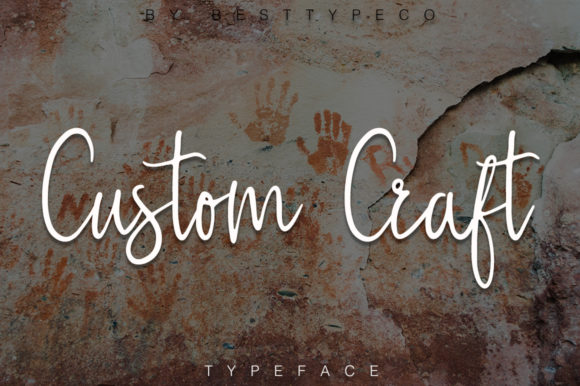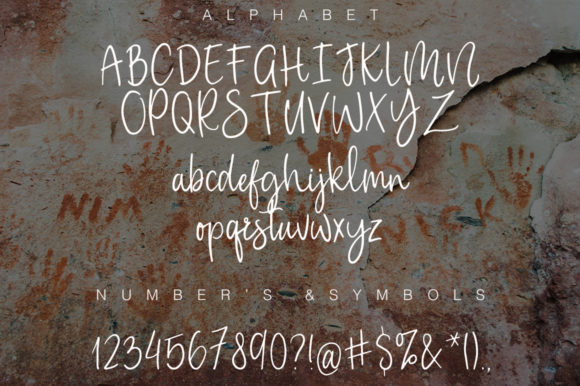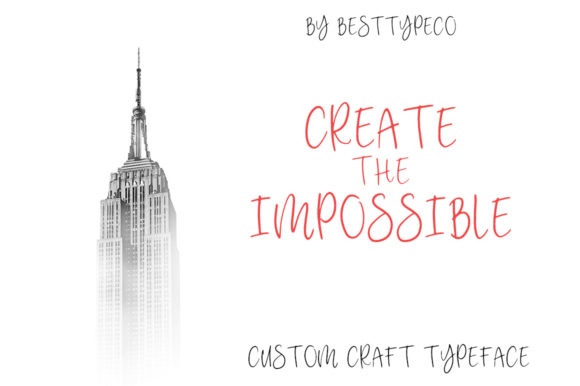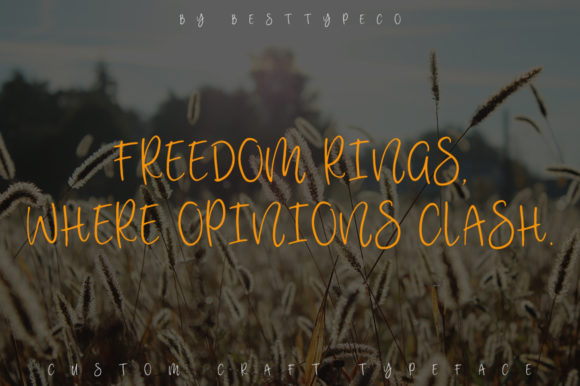
About Custom Craft Font
Custom Craft is a great handwritten font. It maintains its classy calligraphic influences while feeling contemporary and fresh. It is perfect for greeting cards, branding materials, business cards, quotes, posters, websites, merchandise, packaging, invites, greetings and more!